I would like to use Concrete fonts as the math font (the same font use for math in the package ccfonts or concmath) for one document while using GFS Neohellenic for blackboard letters (because the ccfonts package doesn't implement blackboard letters for this font family) and I would like to set Times New Roman as text font only. I already asked a question on how to get blackboard letters for the ccfonts package here : How do I select a blackboard bold font for Concrete math?. The following MWE was given to me to achieve what I wanted :
I never used LuaLaTeX and I don't understand how to mix Times New Roman and Concrete font in the same document. So here is my question :
How can I mix Concrete font as math font, Times New Roman as main font et GFS Neohellenic for blackboard letters in the same document using LuaLaTeX ?
I would like a MWE or links to ressources that explain how to mix fonts in LuaLaTeX.
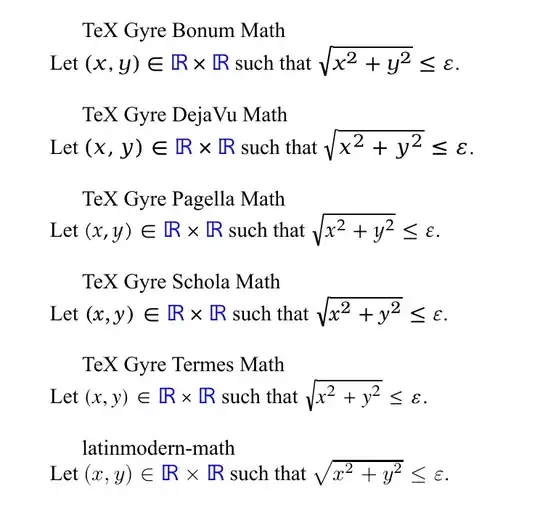
• Do you want to use the math setup like in your MWE or do you actually want to use math symbols from Concrete? – Marcel Krüger Dec 17 '21 at 19:01
• I want to use the math setup like in my MWE and use Concrete as math font, not as main font as in my MWE, but I don't know how to mix this – Elyo Dec 17 '21 at 19:50
• cmunorm.otf, for example, has only 5 mathematical operators, and no Mathematical Alphanumeric Symbols unicode code block. Do you want to use one of the TeX Gyre ... Math fonts instead? (look in /texmf-dist/fonts/opentype/public/tex-gyre-math/) – Cicada Dec 18 '21 at 10:19
Now that there is a Concrete Math Opentype font (https://ctan.org/pkg/concmath-otf), is your question still valid? – mickep Feb 15 '22 at 11:27
• I wasn't aware of that, my question is still valid but was answered. – Elyo Feb 16 '22 at 13:48
A reference comparison of some TeX Gyre Math fonts, so just an illustration, not an answer.
texgyremath fonts
Blue is the neohellenic bb.
Your request
"How can I mix Concrete font as math font, Times New Roman as main font et GFS Neohellenic for blackboard letters in the same document using LuaLaTeX?"
is not quite clear for me: Concrete fonts are text fonts usually associated with the AMS Euler fonts for maths.
One the other hand, Ulrik Vieth has issued (long ago, 1999) the concmath package which borrows the math letters (upright and italics) from the Concrete text fonts, unfortunately that is all metafont, not meant to be used with LuaTeX. I am not aware of any Concrete Math (Opentype) font usable with LuaTeX.
If you can accept Euler (upright) maths, you could try something like this:
which outputs as:
Update 16th January 2022: the new (experimental) concmath-otf package available on CTAN and in the latest TeXLive provides a Concrete-Math OpenType font usable with LuaTeX and XeTeX engines.
][2] is the output of
• I will edit my request, as I understand that it's not clear. I use for my documents the ccfonts package which use the concrete math letters (like concmath). So I want to use concrete math font with GFS Neohellenic Math font for blackboard letters and times as text font – Elyo Dec 18 '21 at 12:51
• The font catalogue https://tug.org/FontCatalogue/computerconcrete/ states: "Computer Concrete with Concrete Math is not available as Type 1 or OpenType." – Daniel Flipo Dec 18 '21 at 14:26
Change the \setmainfont command to \setmainfont{Times New Roman}. That sets the text font.